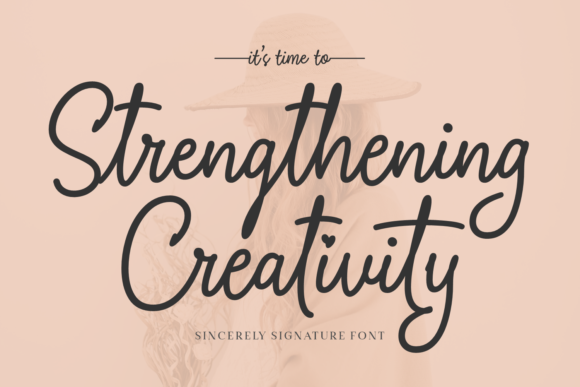
Journey into the realm of creative expression with Strengthening Creativity Font, a captivating script font family that will ignite your imagination and elevate your designs. Crafted by the renowned Situjuh, this font exudes individuality and charm, making it the perfect choice for those seeking to make a lasting impression.
Unleash your creativity and embark on a typographic adventure with Strengthening Creativity. Its enchanting handwritten style adds a touch of elegance and sophistication to any project, whether it's a captivating resume title, a heartfelt love letter, or an eye-catching marketing campaign.
Immerse yourself in the boundless versatility of Strengthening Creativity. Its graceful curves and playful swashes lend themselves effortlessly to a myriad of design possibilities. Create stunning logos that exude professionalism, craft beautiful invitations that radiate warmth and charm, or design social media graphics that captivate and engage your audience.
With Strengthening Creativity as your creative companion, you'll discover a world of typographic possibilities. Its meticulously crafted characters dance harmoniously on the page, evoking a sense of wonder and inspiration. Let your imagination soar as you explore the endless applications of this remarkable font.
Don't settle for ordinary fonts that blend into the background. Embrace the extraordinary with Strengthening Creativity and watch your designs transform into masterpieces. Its unique style will set your work apart, leaving a lasting impression on all who encounter it.
So, embark on this creative journey today and discover the transformative power of Strengthening Creativity. Let your imagination run wild as you create designs that captivate, inspire, and leave an indelible mark on the world. Unleash your inner artist and experience the joy of creating with a font that truly speaks to your soul.